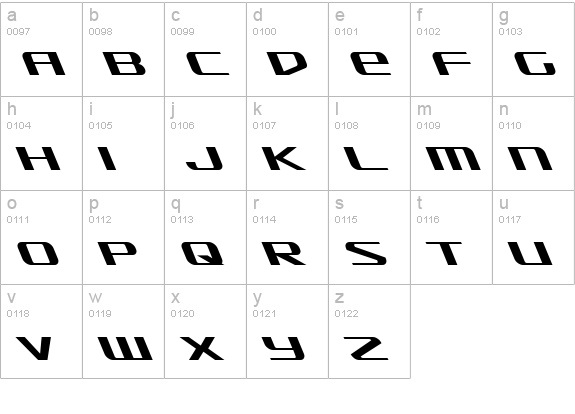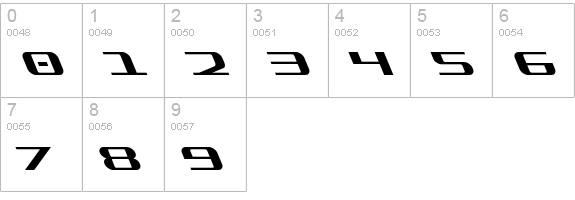
SDF Leftalic font is a stylish and modern typeface that exudes elegance and sophistication. Its sleek and slanted design adds a touch of flair to any project, making it perfect for headers, logos, and creative designs. The smooth curves and sharp edges of SDF Leftalic create a visually appealing look that is sure to capture attention. This versatile font is free to use and is available for download at FontsMarket.com. Whether you're a designer looking for a unique typeface for your next project or a creative individual wanting to add a touch of personality to your work, SDF Leftalic is the perfect choice. Embrace the elegance and creativity of SDF Leftalic and elevate your designs to the next level.